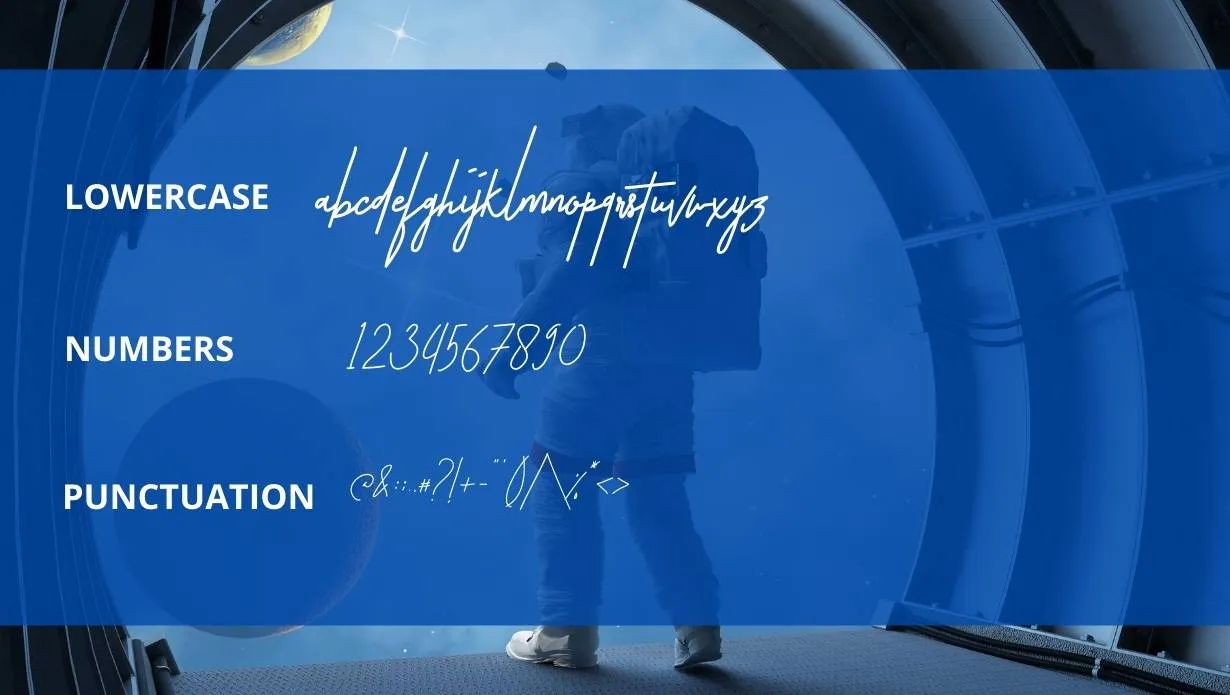
Astronout signature font was designed by Maulana Creative and is based on the handwriting of real astronauts. It’s slightly wider than other fonts, to make it easier to write in space. It’s perfect for creating certificates, posters, and other space-themed designs.
This font has to use a unique signature font when signing documents in space. This is to ensure that their signatures are easily identifiable, even when they’re wearing gloves. This font is also looking very close to the Doctor signature font.
Astronout signature Font Info
| Name | Astronout signature Font |
| Designer | Maulana Creative |
| Style | Handwritten |